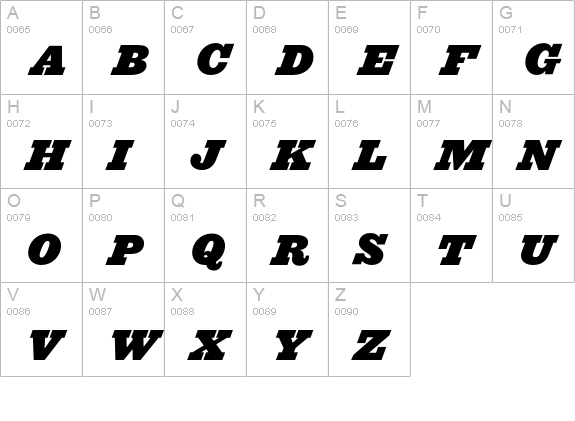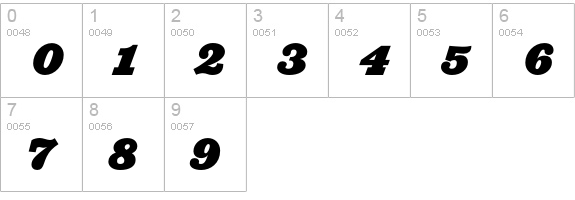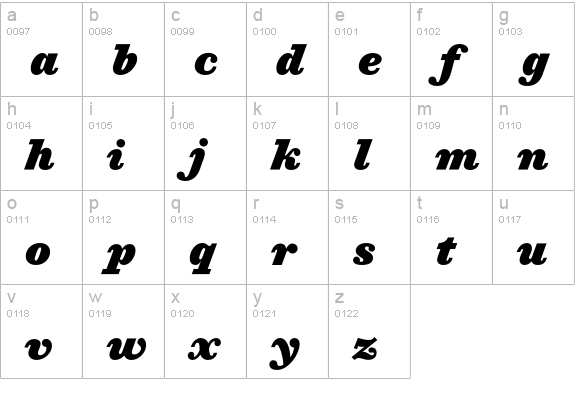
Ziggurat-HTF-Black-Italic Font Details
Ziggurat-HTF-Black-Italic is a maximum-weight, dramatic, italic variant in the Ziggurat typeface family \xE2\x80\x94 well suited to maximum-impact headlines, posters, and packaging.